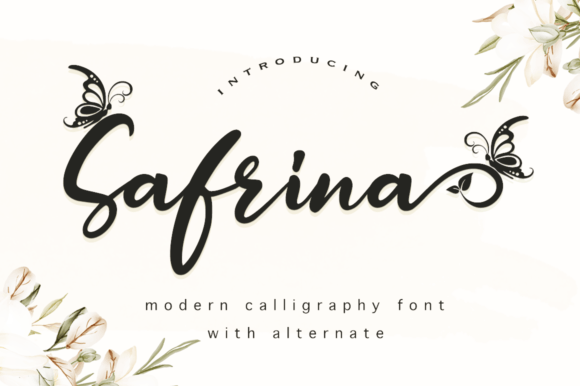
Introducing Safrina Font, an enchanting script font crafted by the visionary cocodesign. This remarkable font exudes an aura of elegance and beauty, making it the perfect choice for creating heartfelt love letters that capture the essence of your emotions. With its graceful strokes and flowing lines, Safrina Font adds a touch of magic to your words, transforming them into a visual masterpiece that speaks directly to the heart.
Immerse yourself in a world of romance and passion as you use Safrina Font to express your deepest feelings. Whether you're crafting a letter to your beloved, creating a heartfelt wedding invitation, or designing a stunning greeting card, this font will elevate your message to new heights. Each letter dances across the page with effortless grace, capturing the essence of your love story and leaving a lasting impression.
Explore the versatility of Safrina Font as you unleash your creativity in a myriad of design projects. Its intricate details and elegant flourishes add a touch of sophistication to logos, business cards, and marketing materials, ensuring that your brand stands out from the crowd. Safrina Font seamlessly blends tradition and modernity, making it the ideal choice for designers seeking a font that exudes both timeless elegance and contemporary flair.